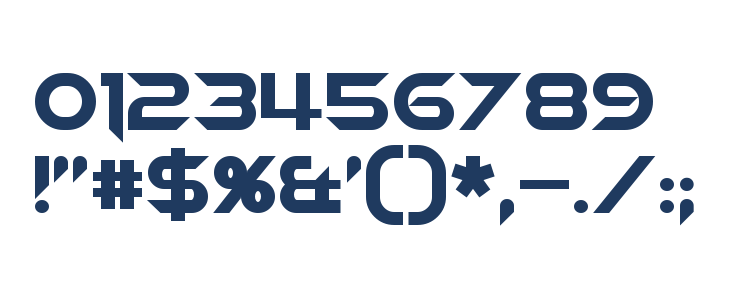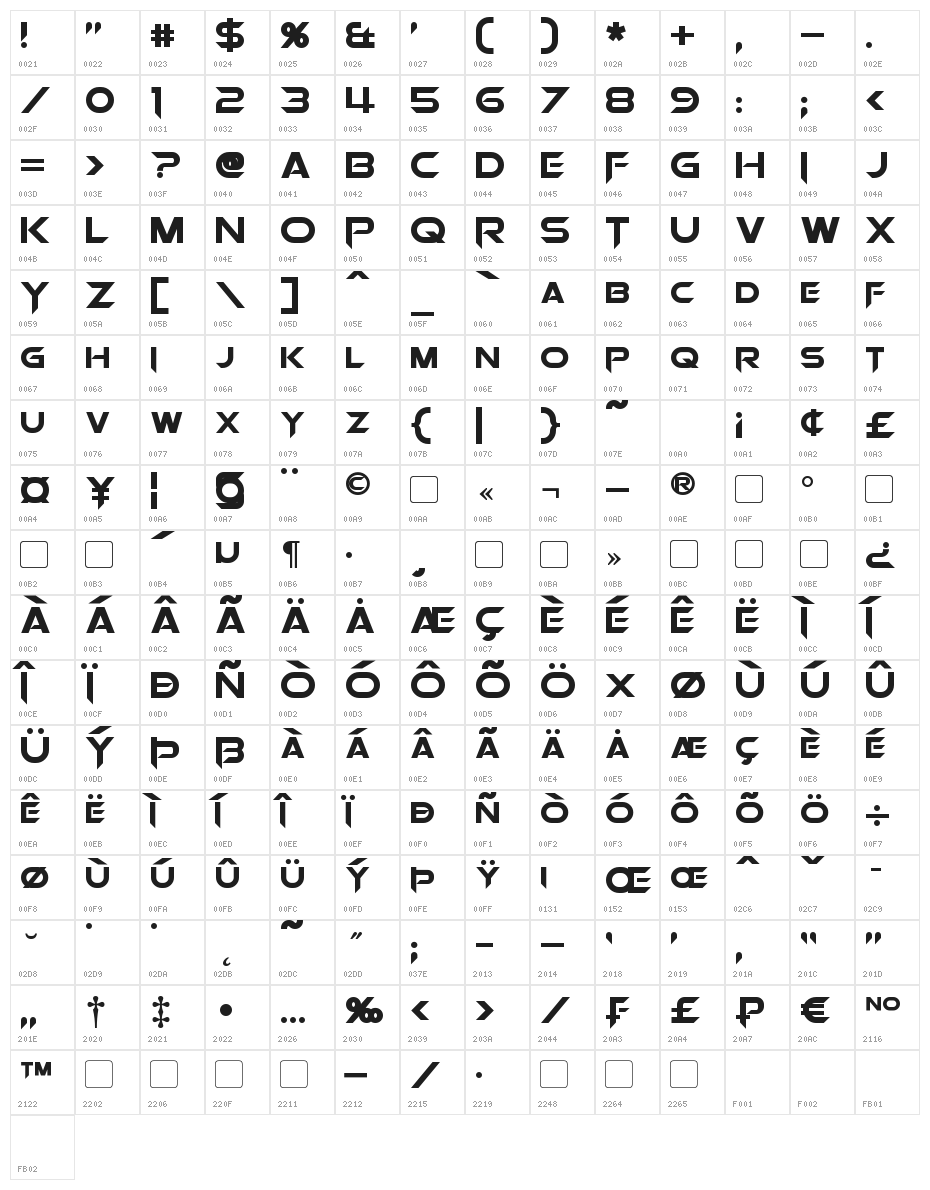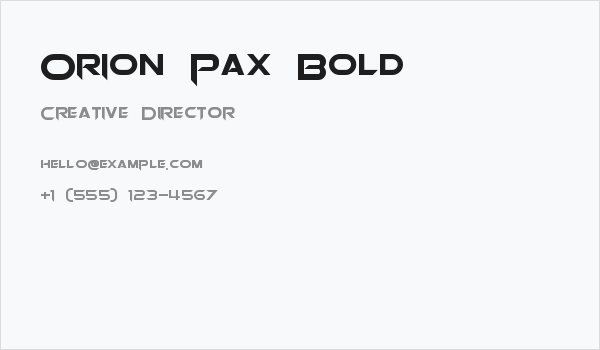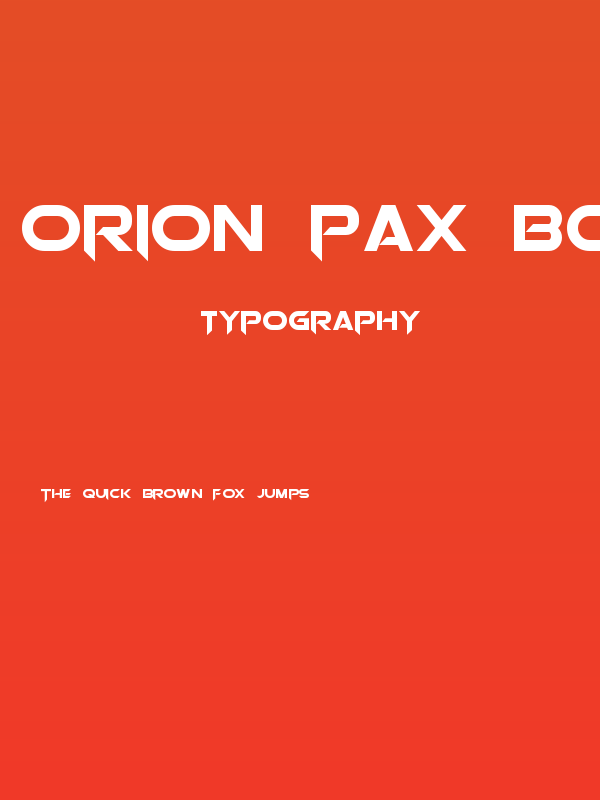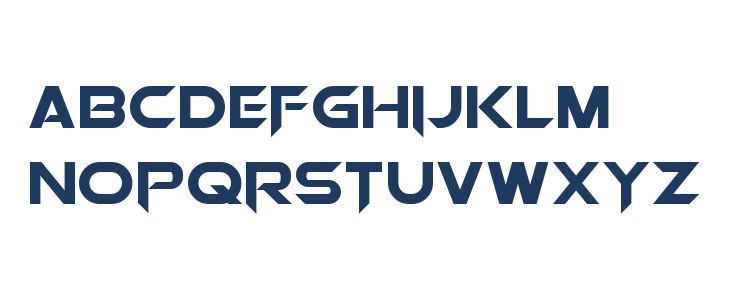
Orion Pax Bold Font
Orion Pax Bold Description
This font exhibits a bold, futuristic style with sharp angles and geometric shapes. The uppercase letters are particularly striking, featuring a unique design where certain strokes extend into pointed edges, creating a dynamic and aggressive appearance. The lowercase letters maintain a consistent style, complementing the uppercase with similar angular features. Numbers and special characters follow the same design principles, ensuring a cohesive look across all glyphs. The overall aesthetic is modern and edgy, making it suitable for projects that require a strong visual impact.
| Proposed Projects | Ideal for sci-fi themed designs, video game titles, tech branding, and futuristic posters. |